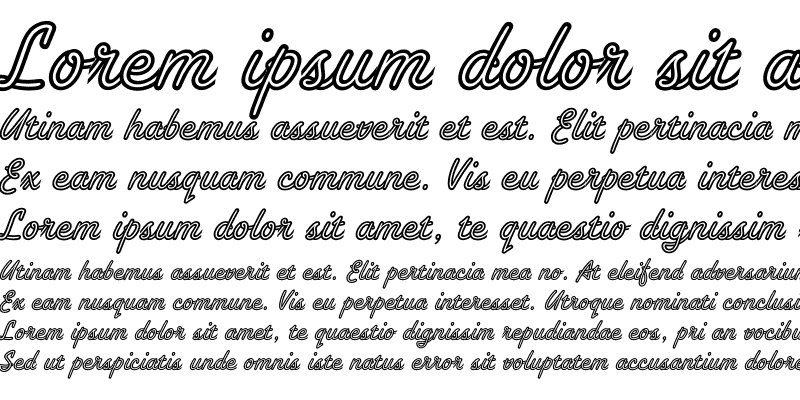
Tropica Script Font is perfect for tropical resort branding, paradise wedding invitations, exotic vacation promotions, beachside restaurant menus, island getaway materials, tropical fruit packaging, coastal spa communications, sunset cruise advertisements, palm tree plantation signage, and paradisiacally flowing marketing communications.
Tropica Script Font is exciting because it captures the flowing rhythm and exotic allure of tropical paradise with its gracefully swaying letterforms that dance like palm fronds in ocean breezes and carry the intoxicating essence of island life where time moves slowly and worries melt away like ice in tropical sunshine. Its luxuriously relaxed character design reflects both the natural elegance of tropical landscapes and the sophisticated leisure that defines premium island experiences, making it perfect for brands celebrating paradise and tropical luxury.
Tropica Script Font family includes light, regular, medium, bold, and black weights, each with corresponding italic variations. The font family also features tropical ornaments, paradise-inspired ligatures, exotic symbols, and island decorative elements that enhance its luxurious aesthetic and tropical versatility.
This paradisiacally elegant typeface represents the perfect fusion of tropical relaxation and sophisticated luxury. Tropica Script Font Free Download allows designers to experience its island appeal before making a commercial commitment. The font's ability to convey both exotic allure and refined elegance makes it ideal for luxury resorts, tropical businesses, and vacation brands targeting audiences seeking premium tropical experiences and paradise escapes.
Whether you're developing tropical resort identities, creating island vacation materials, or designing paradise-themed communications, Tropica Script Font brings an unmistakable sense of exotic luxury and tropical sophistication to every project. Its flowing character and paradise heritage create powerful connections that transport audiences to their dream tropical destinations and luxury island experiences.
The font's versatility excels in hospitality and luxury environments where tropical appeal and sophisticated relaxation are paramount. Its paradise character makes it particularly effective for luxury resorts, tropical spas, exotic restaurants, and premium vacation brands seeking to establish luxurious relationships with affluent travelers and audiences seeking authentic tropical paradise experiences.
For designers working on projects requiring genuine tropical luxury and paradise appeal, Tropica Script Font provides an exceptional solution. Its paradisiacally flowing presence and comprehensive tropical elements offer the tools needed for creating truly luxurious communications, while its exotic sophistication ensures your designs capture the irresistible allure and refined elegance that defines the most exclusive tropical paradise experiences and luxury island destinations.